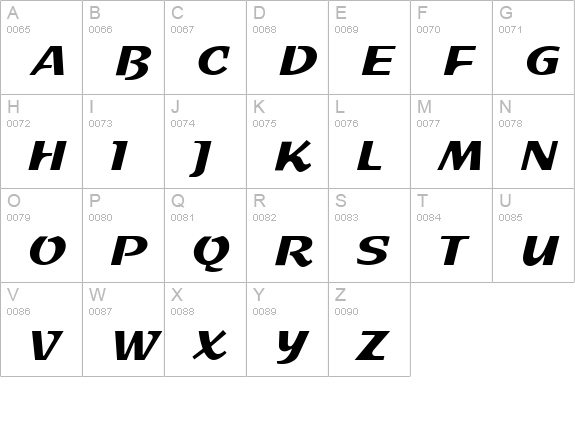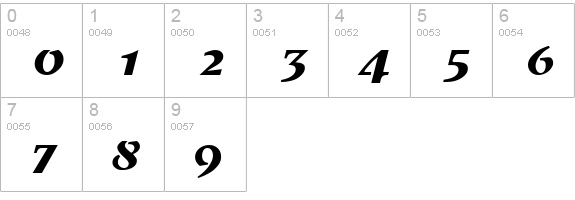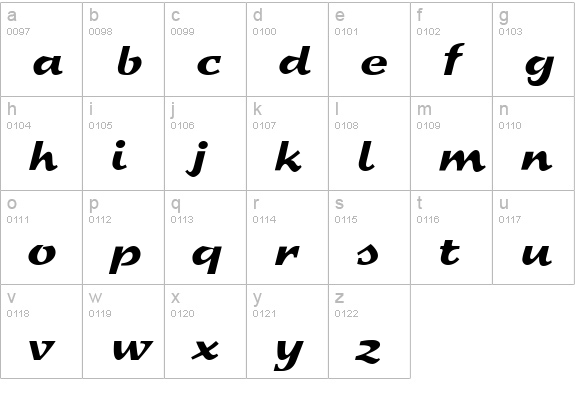
S800-Script-Regular Font Details
S800-Script-Regular is the standard, neutral variant in the S800 typeface family \xE2\x80\x94 well suited to general body text, paragraphs, and standard typographic work.
S800-Script-Regular font is a charming and elegant typeface that exudes sophistication and style. With its fluid and graceful curves, this font is perfect for adding a touch of class to any design project. The S800-Script-Regular font is versatile and can be used for a variety of purposes, from wedding invitations to branding materials. The best part? S800-Script-Regular font is completely free to download at FontsMarket.com. It offers a seamless and hassle-free experience for users looking to enhance their creative projects with a beautiful script font. Say goodbye to expensive font purchases and hello to stunning typography with S800-Script-Regular. Download it today and elevate your designs with this exquisite typeface.